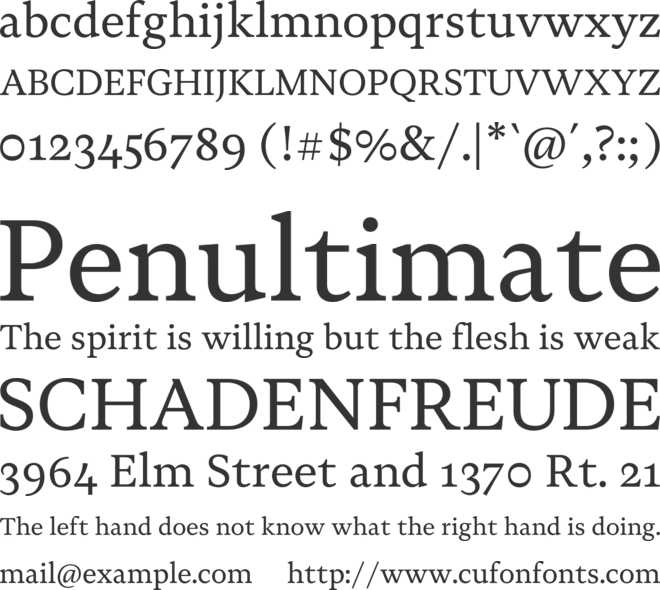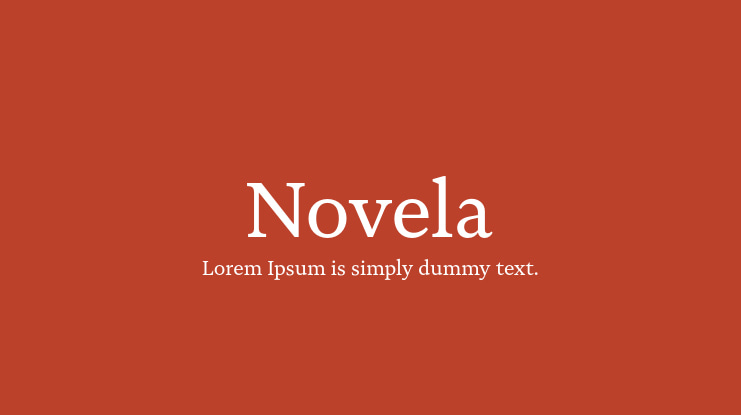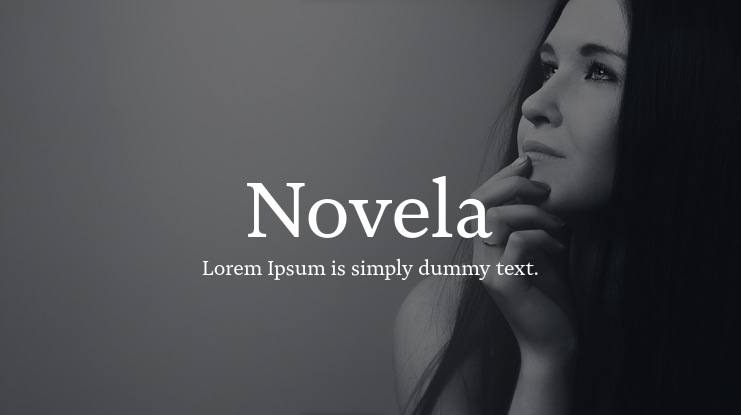
Novela Font
This is an elegant, display, serif typeface manufactured by atipo. The Roman style is paired with classic and dynamic Italics. Novela has a quiet big x-height value, modern proportions, sharp terminals and an extreme stroke contrast with a diagonal stress. The letterforms are elegant and have beautiful, polished details. Novela is a great choice for fashion projects, headlines, titles, posters, packagings, covers and logotypes but can be also successfully used in some occasional texts.